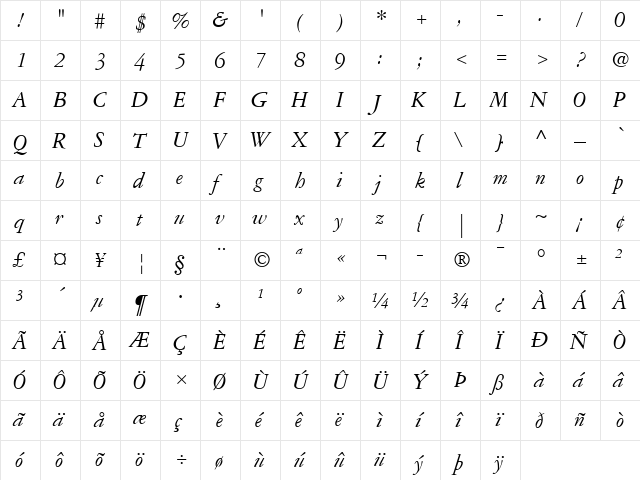
Garamond 3 LT Italic
Design Context for Garamond 3 LT Typeface
Garamond 3 LT is a composed and adaptable typeface that performs quietly and consistently across a wide range of design contexts. The dynamic lean of this cut emphasises speed and emphasis in any layout. The delicate stroke weight brings airiness and refinement to layouts.
Pro Tip: Use Garamond 3 LT for emphasis, pull quotes, and subheadings where its slanted energy can add rhythm to the layout.